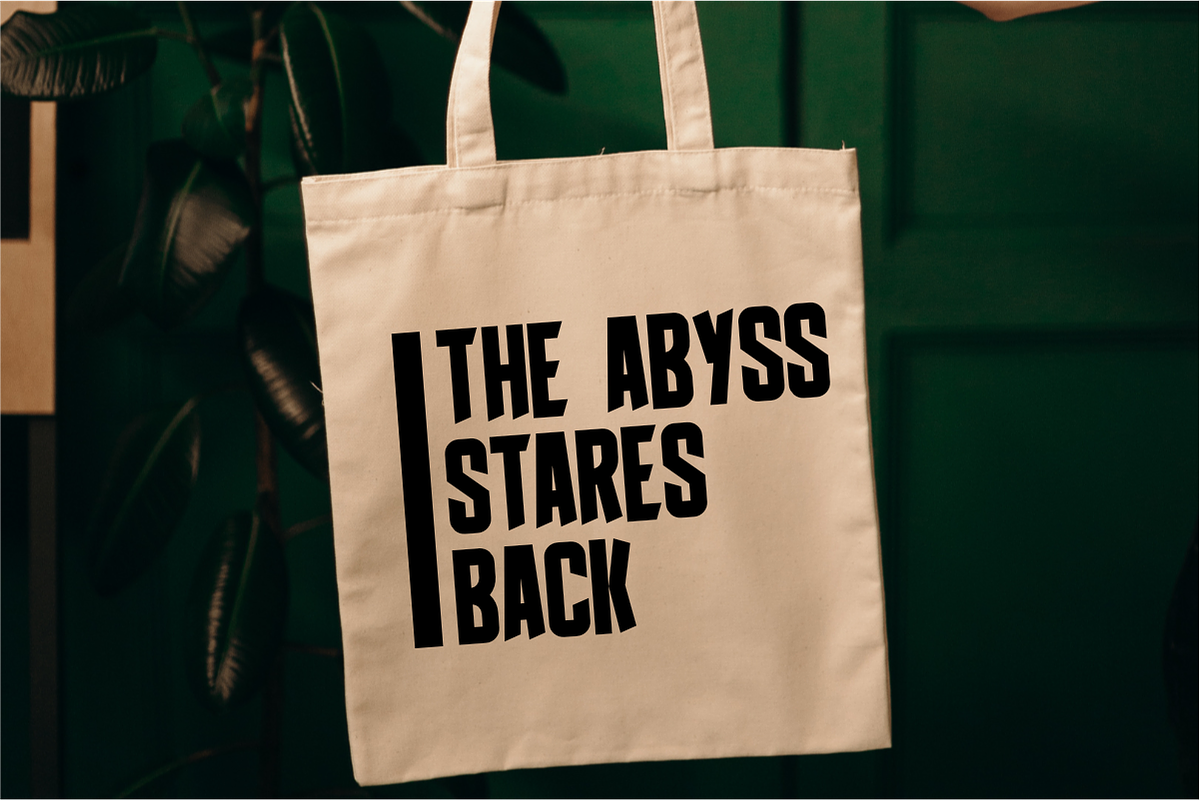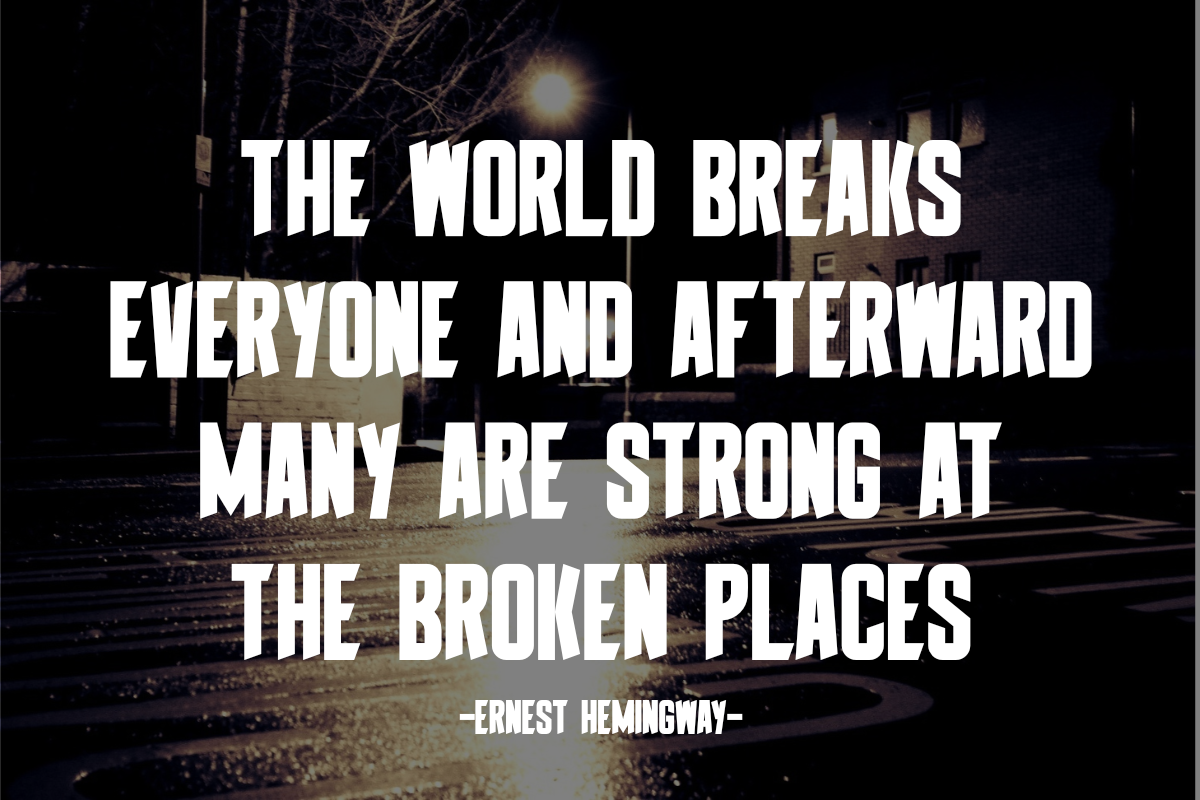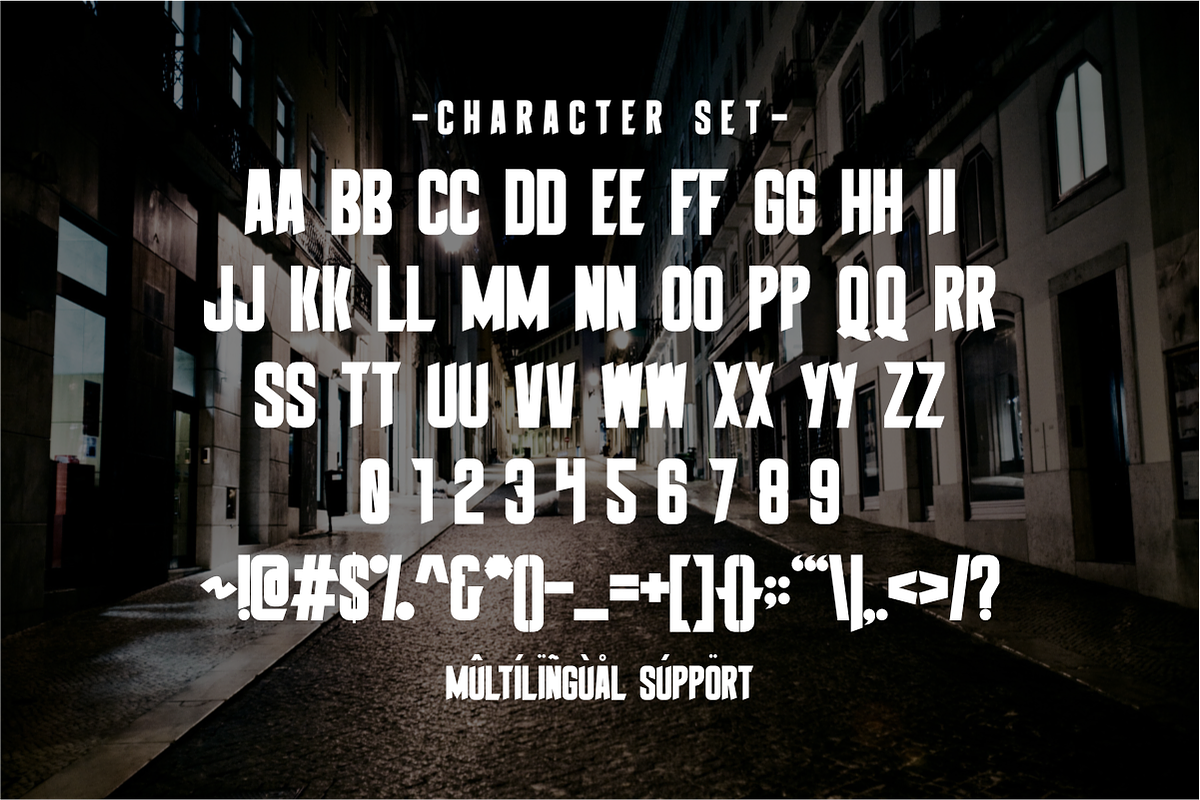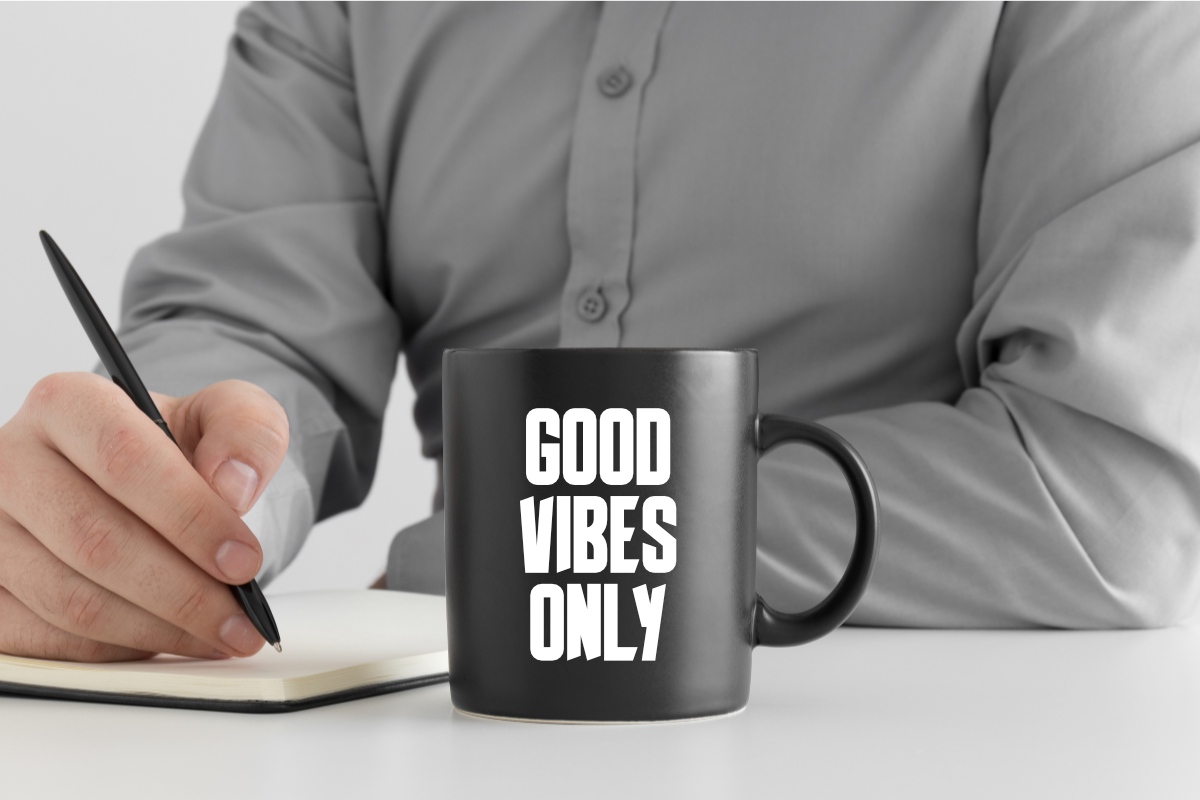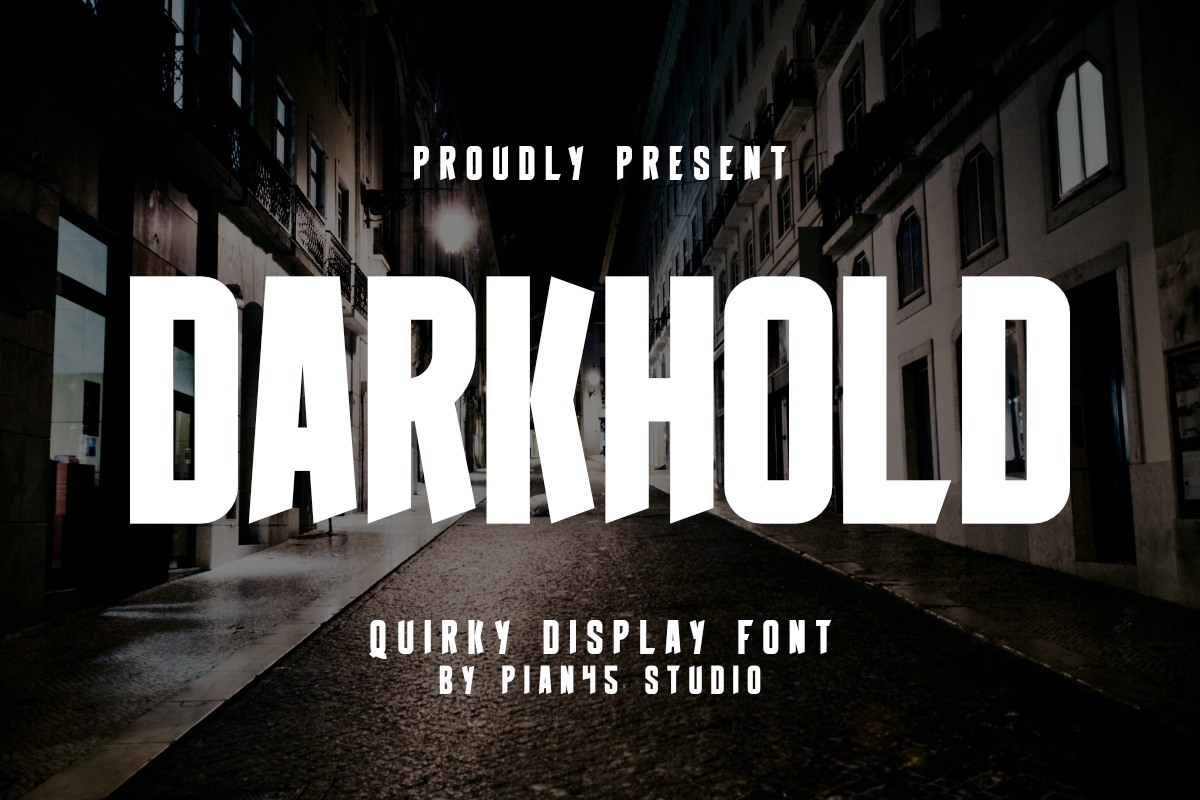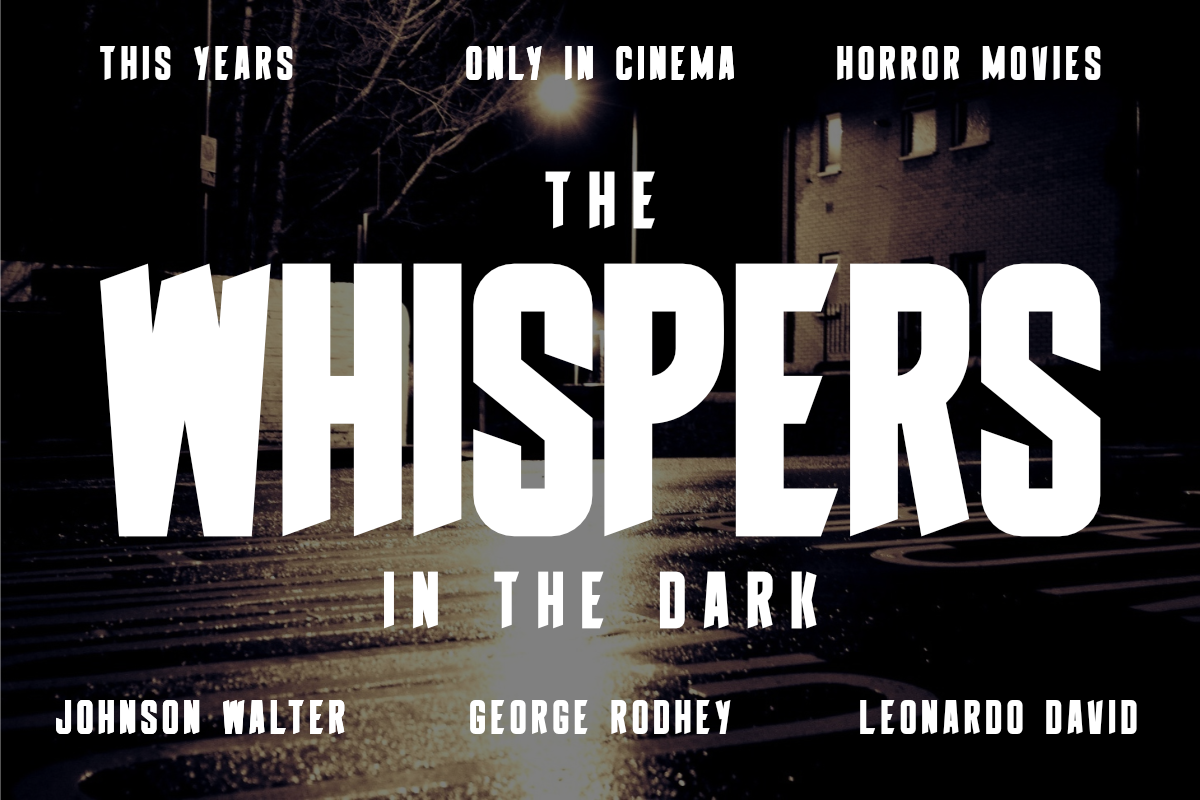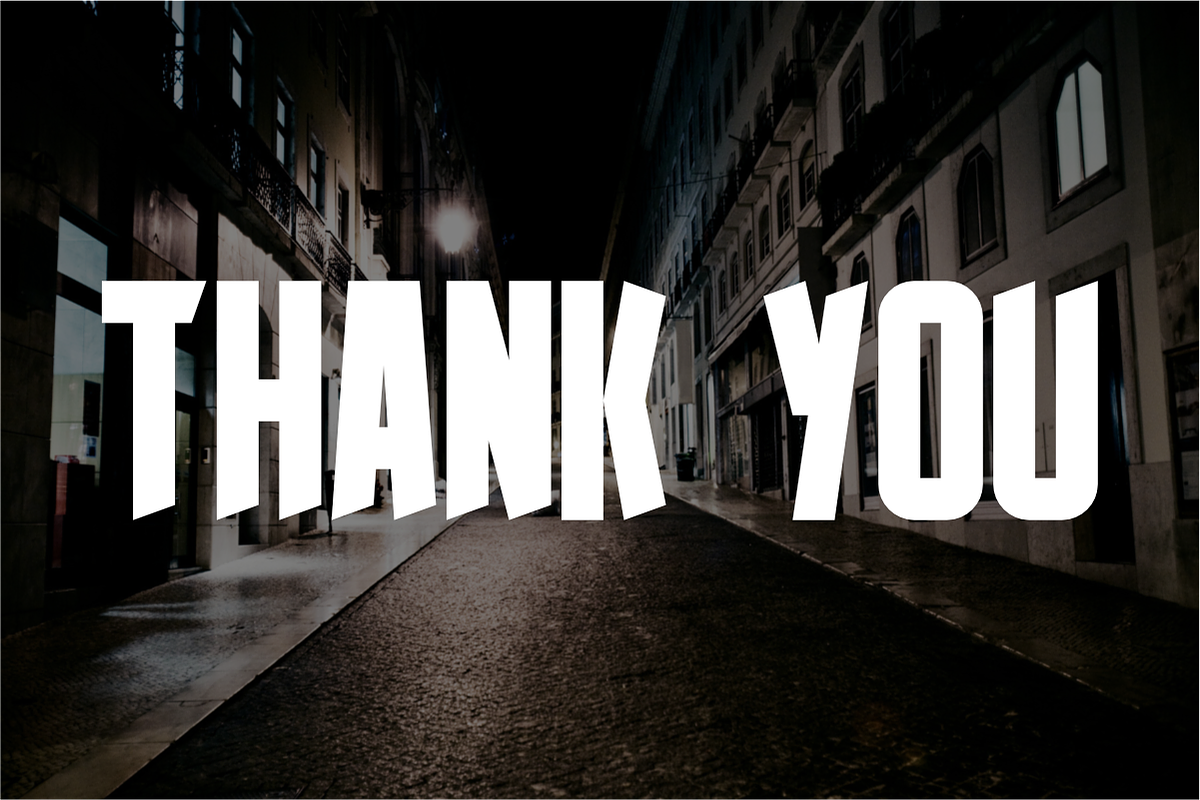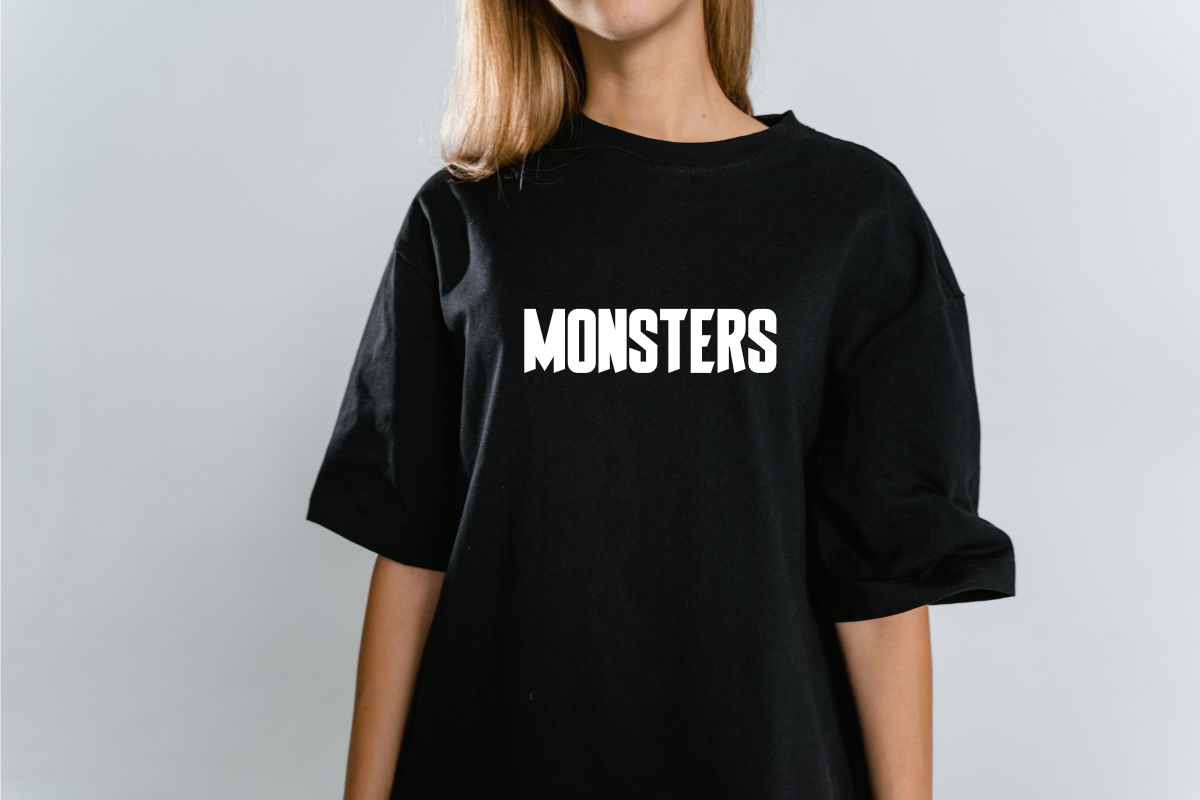
Darkhold - Quirky Display Font
Darkhold is a condensed and quirky display font that commands attention. Its unique and slightly sinister style makes it perfect for projects that require a bold and memorable aesthetic. Ideal for posters, headlines, and branding that aims to stand out with a touch of the unusual.